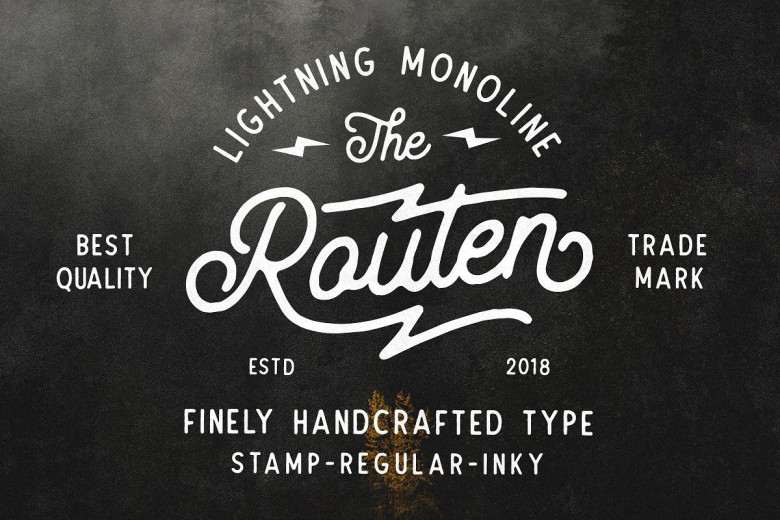
Routen Lightning Monoline Font
Introducing Routen. It is designed by Tyfrography, this is a premium font, are sold on creativemarket, but it was great, it is free today for download. Routen – a Vintage monoline with lightning swash! monoline vintage script typeface which is created with many features such as ligatures, stylistic set alternate, swashes, etc with total 350++ GLYPHS! which is obviously support multi language characters! Provided in both OTF and TTF.